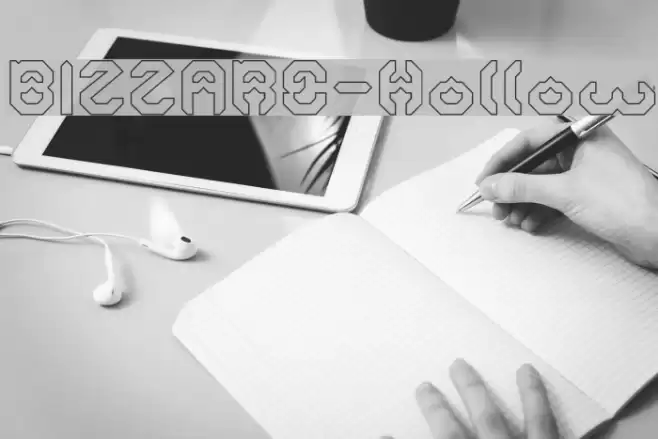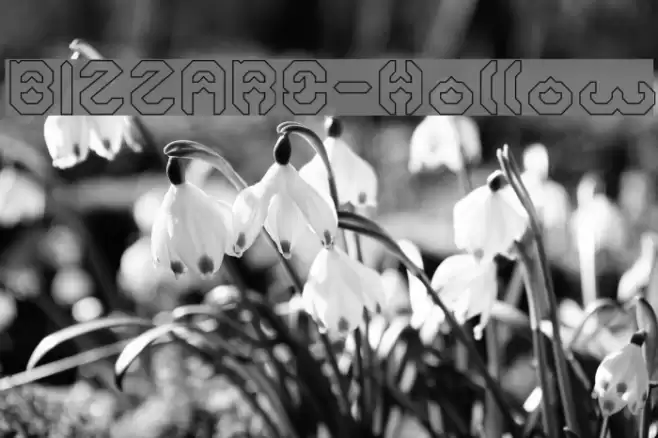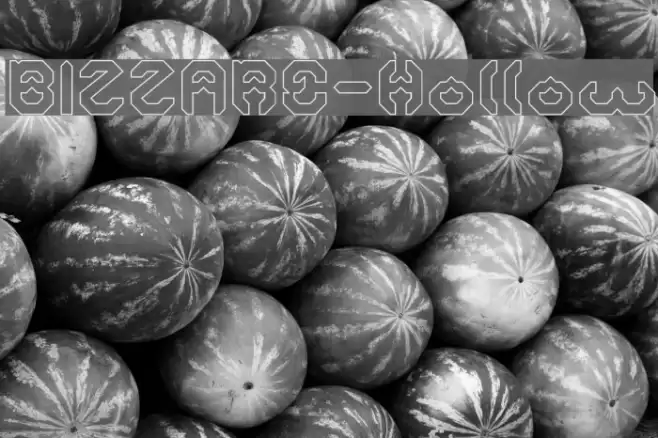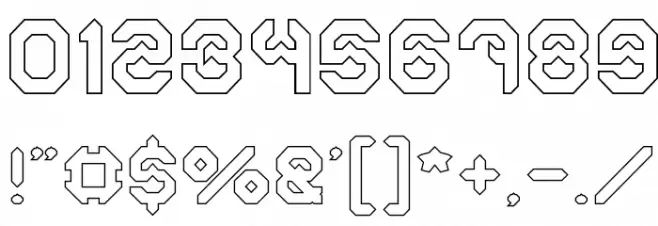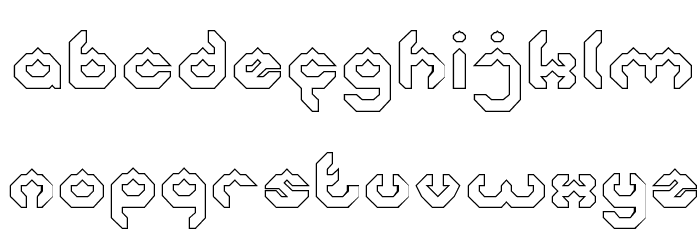
BIZZARE-Hollow Font
BIZZARE-Hollow Description
This font features a unique hollow design with geometric and angular shapes, creating a futuristic and edgy appearance. The uppercase and lowercase letters maintain a consistent style, characterized by sharp edges and a distinct outline that gives them a three-dimensional look. The numerals and special characters follow the same design principles, ensuring uniformity across all elements. This font's hollow nature makes it stand out, providing a bold yet airy aesthetic that is both modern and eye-catching.
A futuristic, hollow font with geometric and angular shapes from Uncategorized fonts.
- Proposed Projects: Ideal for sci-fi themed projects, modern branding, tech-related designs, and eye-catching posters.